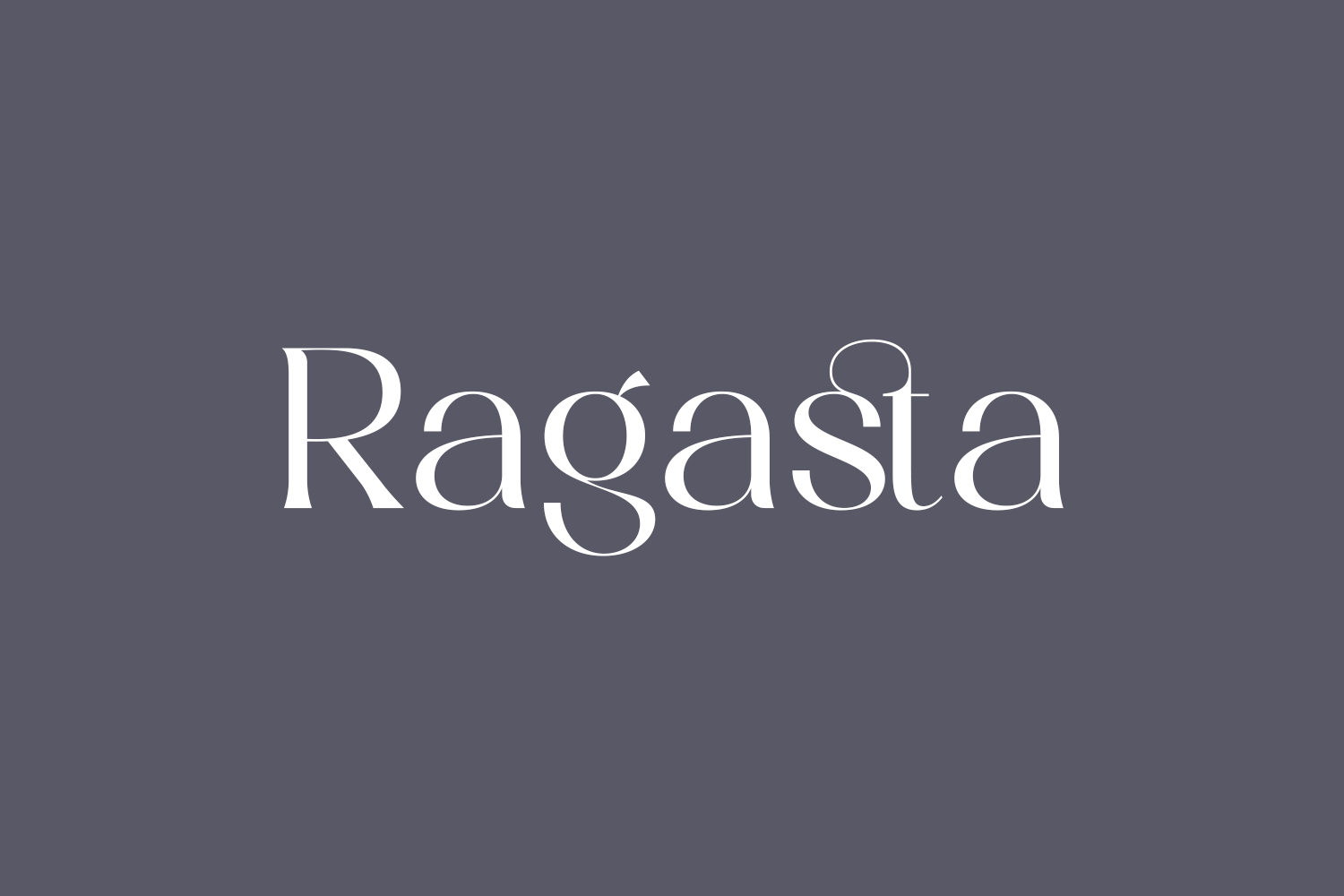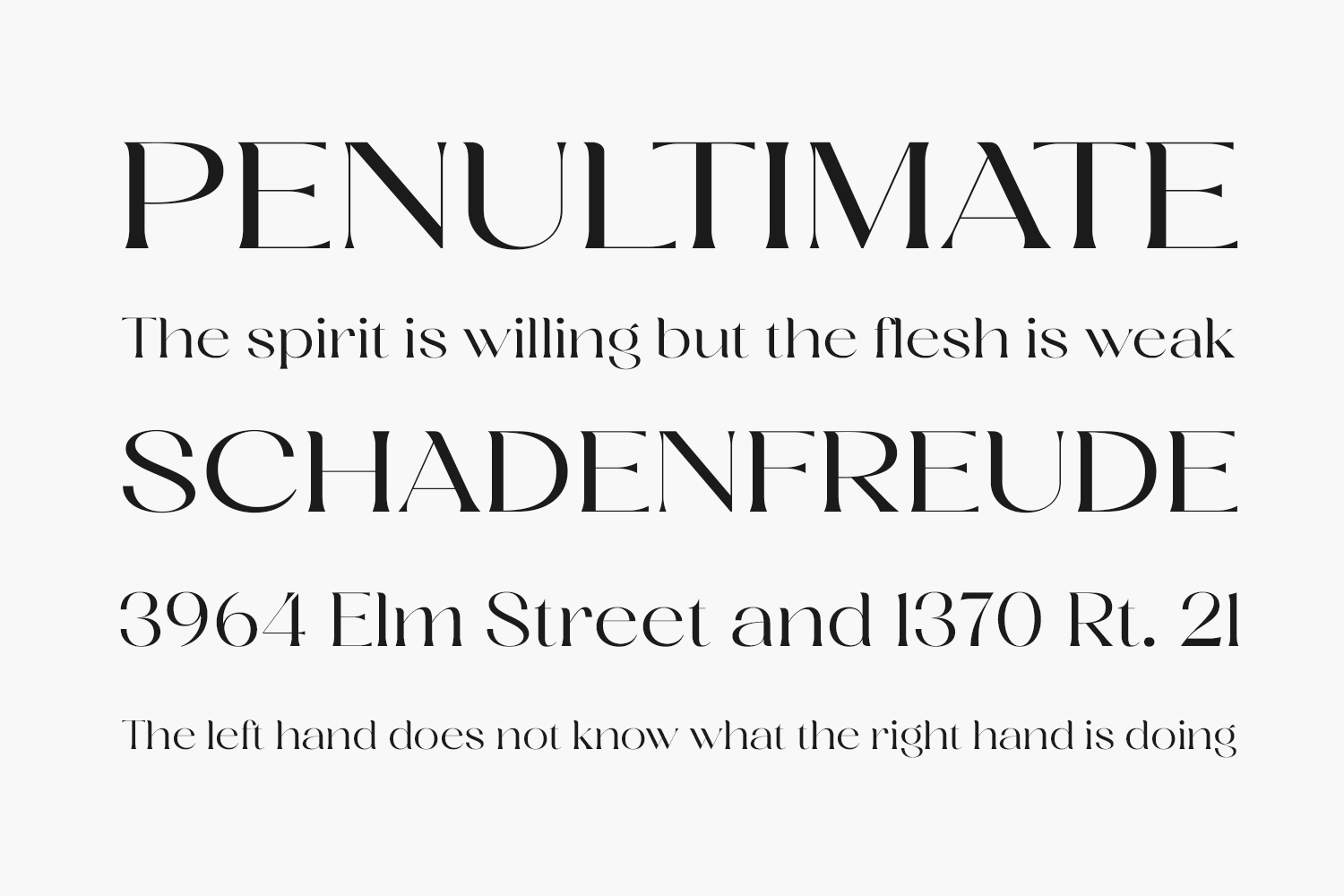
Ragasta Free Font Family is a classic and elegant serif font. Add it confidently to your favorite creations and let yourself be amazed by the outcome generated. Ragasta Free Font Family was designed by Storytype Studio and is free for personal use only. Please purchase the full version for commercial use.